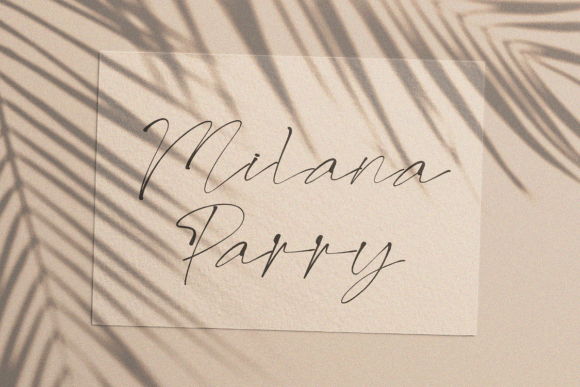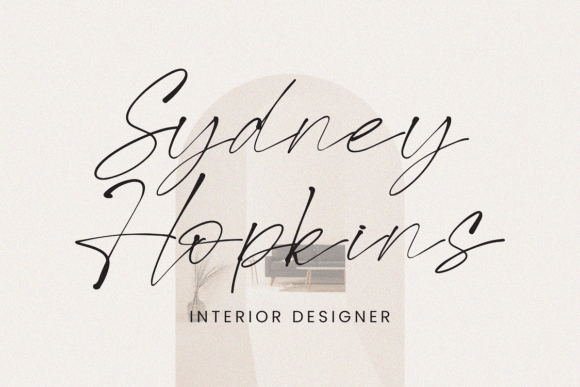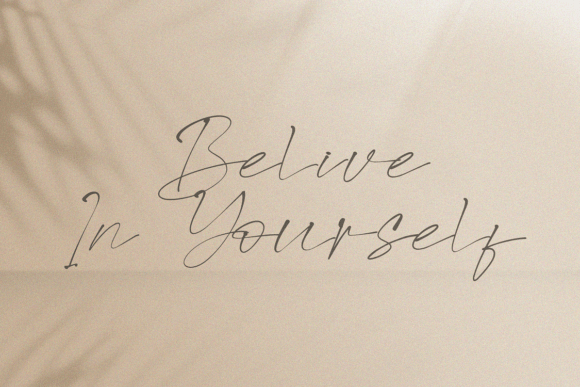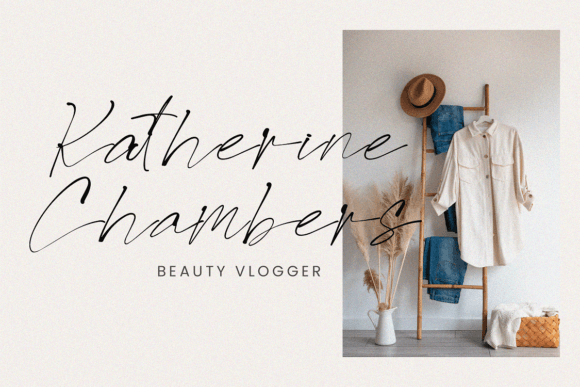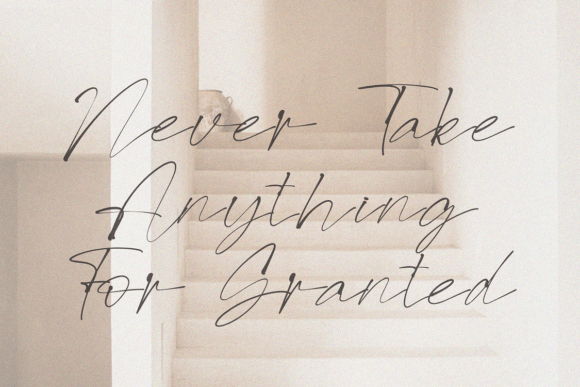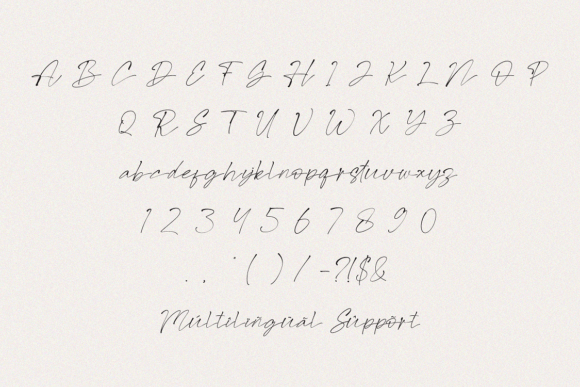
Introduction to Moraeza Font
As designers, we’ve all been there – staring at a blank canvas, trying to bring our creative vision to life. It’s the moment when the perfect font can make all the difference. Imagine a font that exudes elegance, sophistication, and effortless charm. A font that elevates your design from ordinary to extraordinary.
Enter the Moraeza Font, a stunning signature style font that’s sure to take your creative projects to the next level. With its refined curves and delicate strokes, this font is the epitome of high-quality design. Whether you’re working on a logo, branding, or an upscale project, Moraeza Font is the perfect design resource to add a touch of luxury and sophistication.
Key Features of Moraeza Font
- Designed with a unique aesthetic, making it an ideal choice for creative projects that require a distinctive look.
- Perfect for designers and artists looking for a high-quality design resource to elevate their creative projects.
Honest Review: Moraeza Font
I recently came across the Moraeza Font, and I must say it’s a fantastic addition to any designer’s toolkit. This free download has been a game-changer for my creative projects.
- ✨ High-quality design: The font’s crisp lines and precise curves make it perfect for a wide range of applications, from print to digital media.
- ✨ Transparent background: This feature allows for seamless integration with images and other design elements, giving my projects a professional finish.
- ✨ Versatility: The Moraeza Font is incredibly versatile, making it suitable for a variety of design projects, from logos to brochures.
However, I do have a few minor quibbles:
- ⚠️ Limited character set: While the font has a decent range of characters, it falls short of some other high-end fonts in terms of sheer scope.
- ⚠️ Not suitable for all fonts: The Moraeza Font may not be the best choice for designs that require a lot of bold or italic text.
Overall, I’m thoroughly impressed with the Moraeza Font. It’s a high-quality design resource that’s perfect for designers of all levels. While it may have a few limitations, the benefits far outweigh the drawbacks.
The Moraeza Font is a free download design resource ideal for creative projects that require high-quality typography. Its transparent background makes it versatile for use in various design applications.
Tips for Getting the Most Out of Moraeza Font
Experiment with different font sizes and styles to achieve the desired effect. Combine the Moraeza Font with other design elements to create a visually appealing design.
The Moraeza Font is ideal for use in branding, logos, and marketing materials. Its high-quality typography and transparent background make it a versatile design resource for various creative projects.
Alternatives to Moraeza Font
Montserrat is a popular, high-quality font perfect for creative projects that require a modern and sleek design. It’s available for free download and comes in various weights and styles, making it ideal for a wide range of design applications. Montserrat is a great choice when you need a font with a clean and minimalist aesthetic, similar to Moraeza Font. However, Montserrat has a more geometric feel and is better suited for digital designs with a transparent background.
Open Sans is another high-quality font that’s great for design projects that require a clean and professional look. It’s a free download and comes in various weights and styles, making it suitable for a wide range of design applications. Open Sans is a good alternative to Moraeza Font when you need a font with a friendly and approachable feel, but it lacks the distinctive flair of Moraeza Font. Open Sans is ideal for designs that require a lot of text, such as articles and blogs.